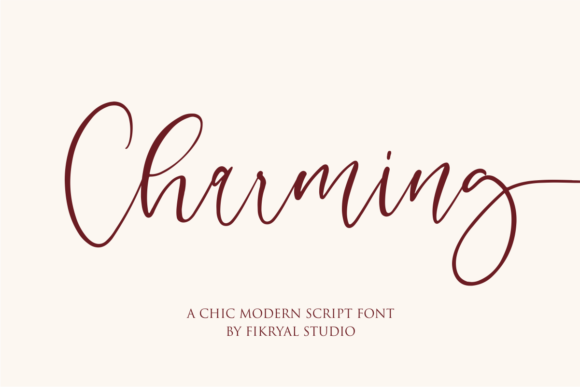
Introducing Charming Font: The Ultimate Script Font for Modern Designers
Are you tired of using the same old fonts for your designs? Look no further! Charming Font is a chic and modern script font that is sure to elevate your designs to the next level. With its varying baseline, smooth lines, gorgeous glyphs, and stunning alternates, Charming Font is the perfect choice for designers and crafters who want to add a touch of elegance and sophistication to their work.
What Makes Charming Font So Special?
Charming Font is not just another script font. It has been carefully crafted to provide a unique and authentic feel that will make your designs stand out from the crowd. Here are just a few of the features that make Charming Font so special:
- Varying Baseline: Charming Font features a varying baseline that gives it a natural, handwritten feel. This makes it perfect for creating designs that look like they were written with love and care.
- Smooth Lines: The smooth lines of Charming Font make it easy to read and give it a luxurious feel. Whether you’re creating wedding invitations, social media posts, or greeting cards, Charming Font is sure to impress.
- Gorgeous Glyphs: Charming Font comes with a wide range of gorgeous glyphs that will add a touch of personality to your designs. From cute swashes to elegant flourishes, Charming Font has everything you need to create stunning designs.
- Stunning Alternates: With Charming Font, you’ll have access to a range of stunning alternates that will allow you to customize your designs and make them truly unique.
Special Features to Take Your Designs to the Next Level
Charming Font comes with a range of special features that will take your designs to the next level. These include:
- Alternate Glyphs: With Charming Font, you’ll have access to a range of alternate glyphs that will allow you to customize your designs and make them truly unique.
- Ligatures: Charming Font also comes with ligatures, which are special characters that combine two or more letters to create a single, elegant character.
Charming Font is perfect for designers and crafters who want to create stunning designs that will impress their clients or friends. Here are just a few ideas for how you can use Charming Font:
- Wedding Invitations: Charming Font is perfect for creating beautiful wedding invitations that will set the tone for a romantic and elegant wedding.
- Stationary Art: With Charming Font, you can create stunning stationary art that will add a touch of personality to any room.
- Social Media Posts: Charming Font is also great for creating eye-catching social media posts that will grab the attention of your followers.
- Greeting Cards: Finally, Charming Font is perfect for creating cute and personalized greeting cards that will make your friends and family feel special.
| Author | Fikryal Studio |
In conclusion, Charming Font is a must-have for any designer or crafter who wants to add a touch of elegance and sophistication to their work. With its varying baseline, smooth lines, gorgeous glyphs, and stunning alternates, Charming Font is the perfect choice for anyone who wants to create beautiful designs that will impress. So why wait? Download Charming Font today and start creating stunning designs that will make your clients or friends fall in love!